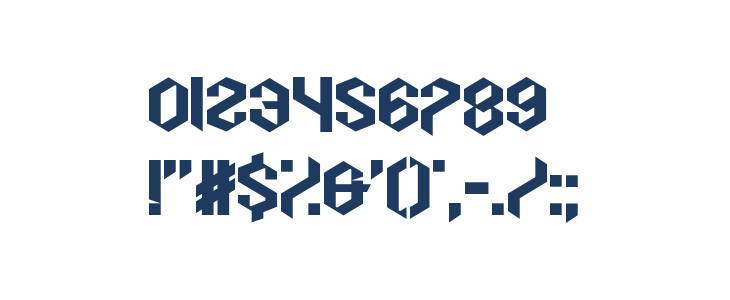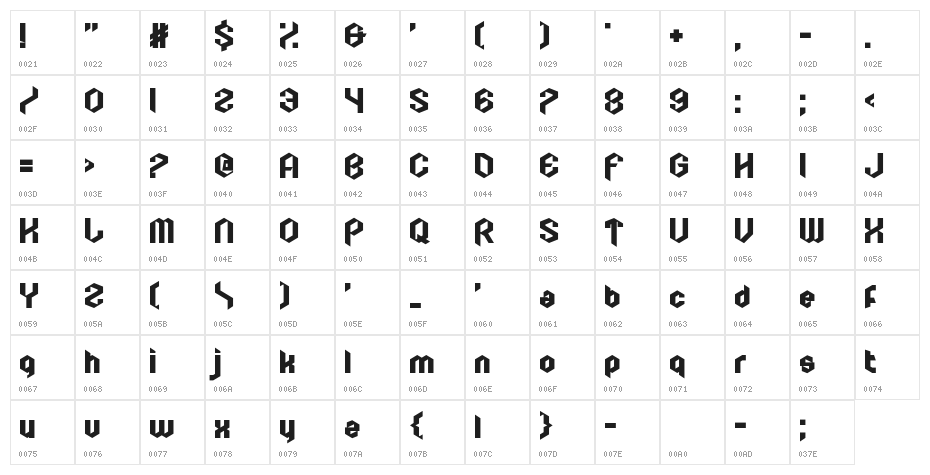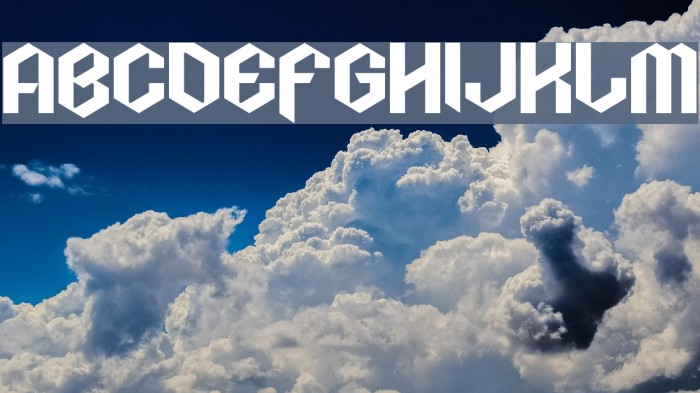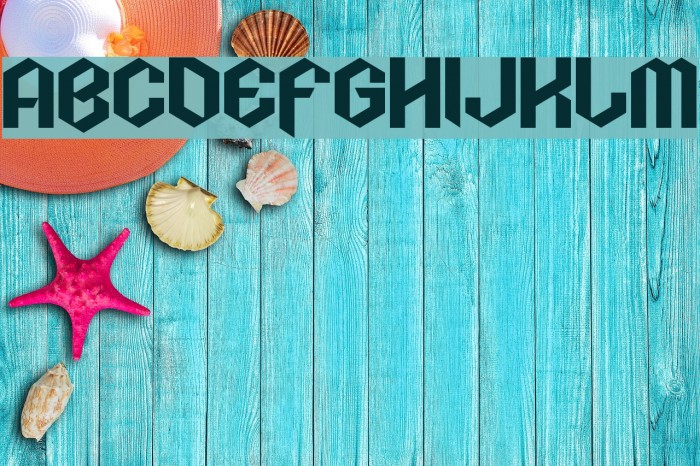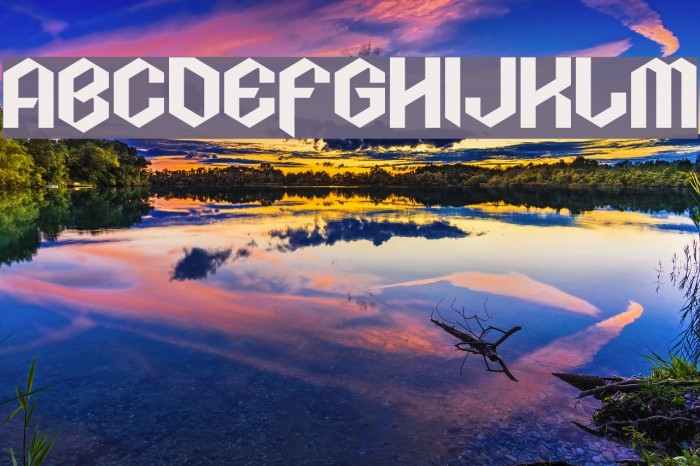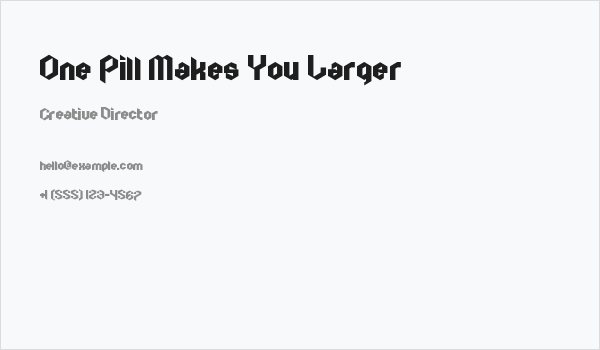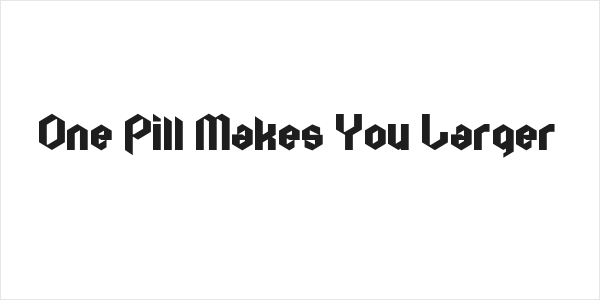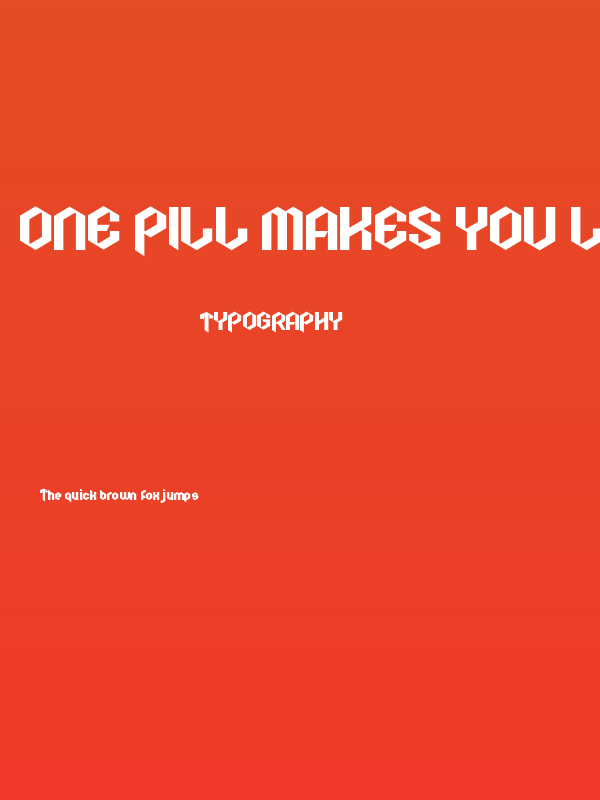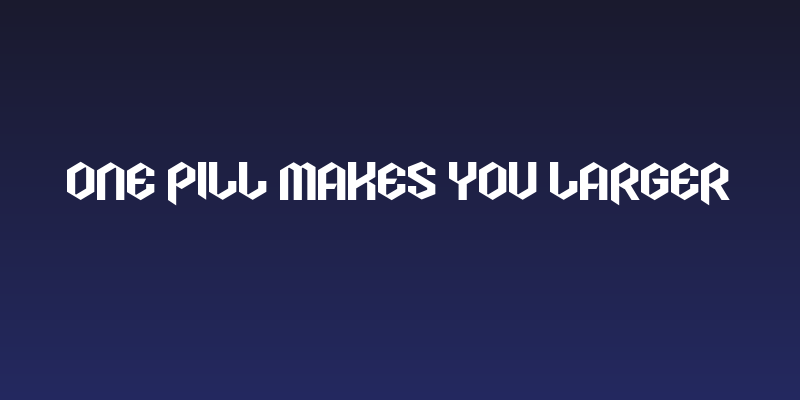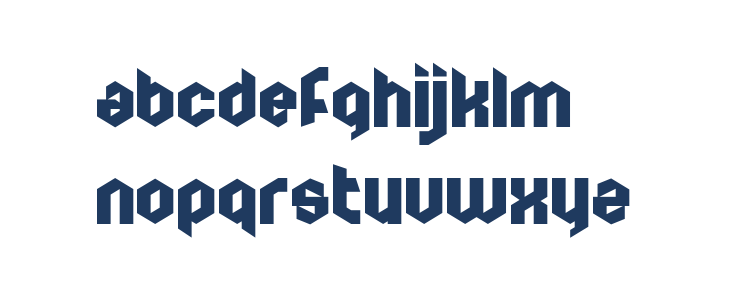
One Pill Makes You Larger Font
One Pill Makes You Larger Description
This font features a bold, geometric design with sharp angles and a strong presence. The characters are constructed with a consistent thickness, creating a uniform and cohesive look. The uppercase and lowercase letters maintain a similar style, with the lowercase having a slightly more compact form. Numbers and special characters follow the same angular and bold aesthetic, ensuring visual harmony across all elements. The font's unique style is reminiscent of modern architectural forms, making it stand out with its striking appearance.
| Proposed Projects | Ideal for branding, poster design, and any project requiring a strong visual impact. |